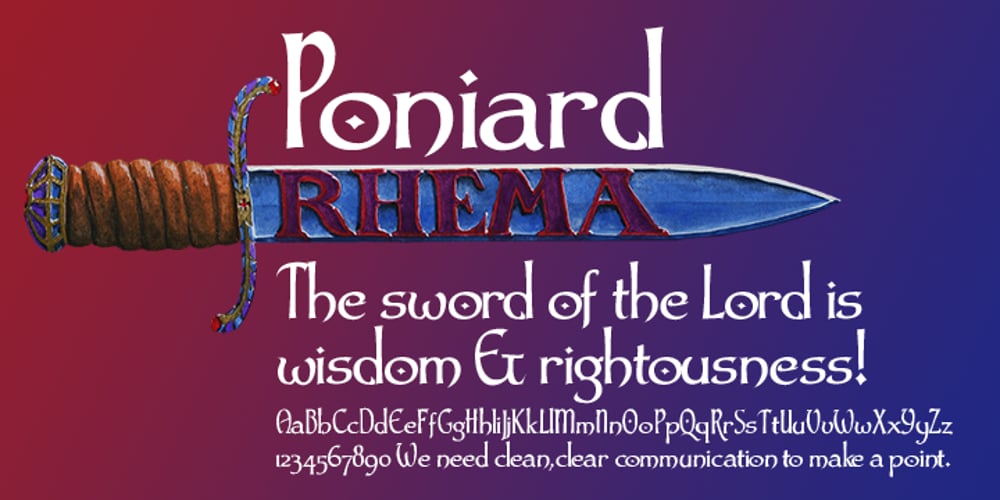
Poniard Font Family was designed by David Bergsland and published by Hackberry Font Foundry. Poniard contains 1 styles and family package options. Cutlass was just for fun. Poniard is the working version. Sleek, slender, sharp, to the point! A bit of decorative fun. This is the first font used in teaching Fontographer in my new Practical Font Design Book. I thought I better release it for those who enjoyed the journey. It’s just an 8-bit font for fun. Enjoy!